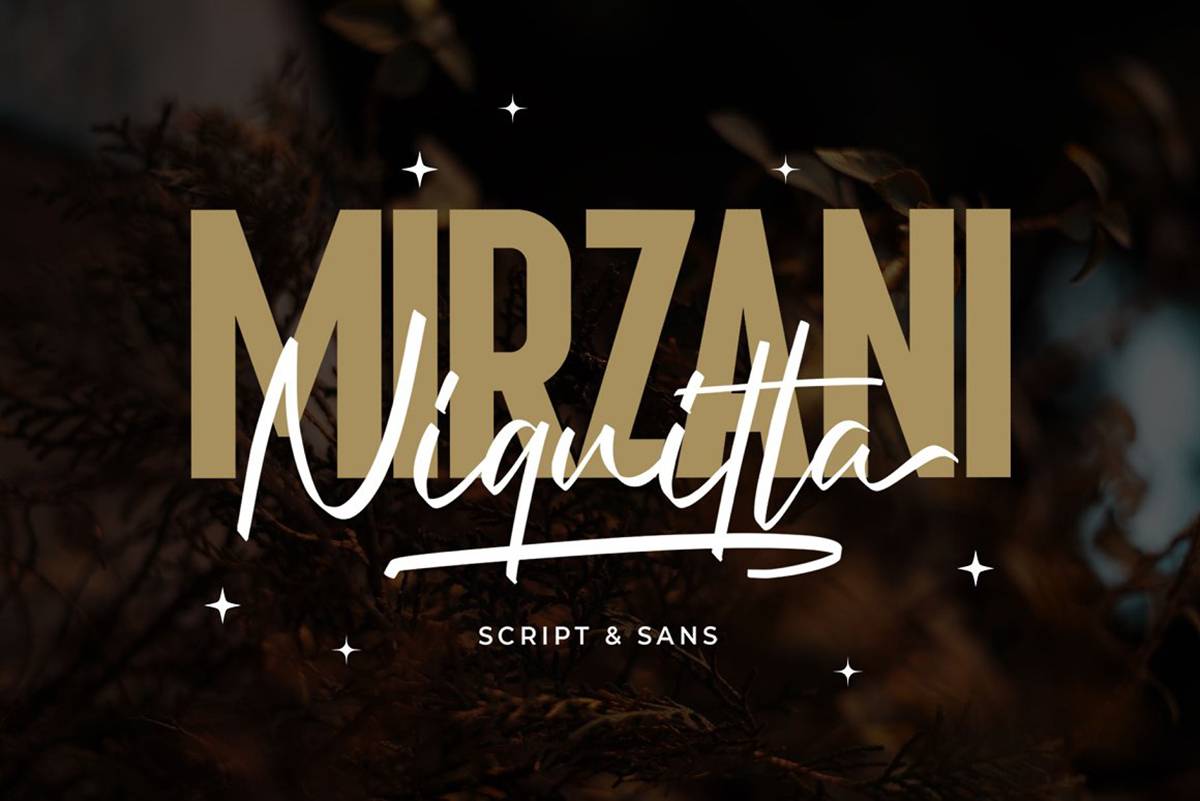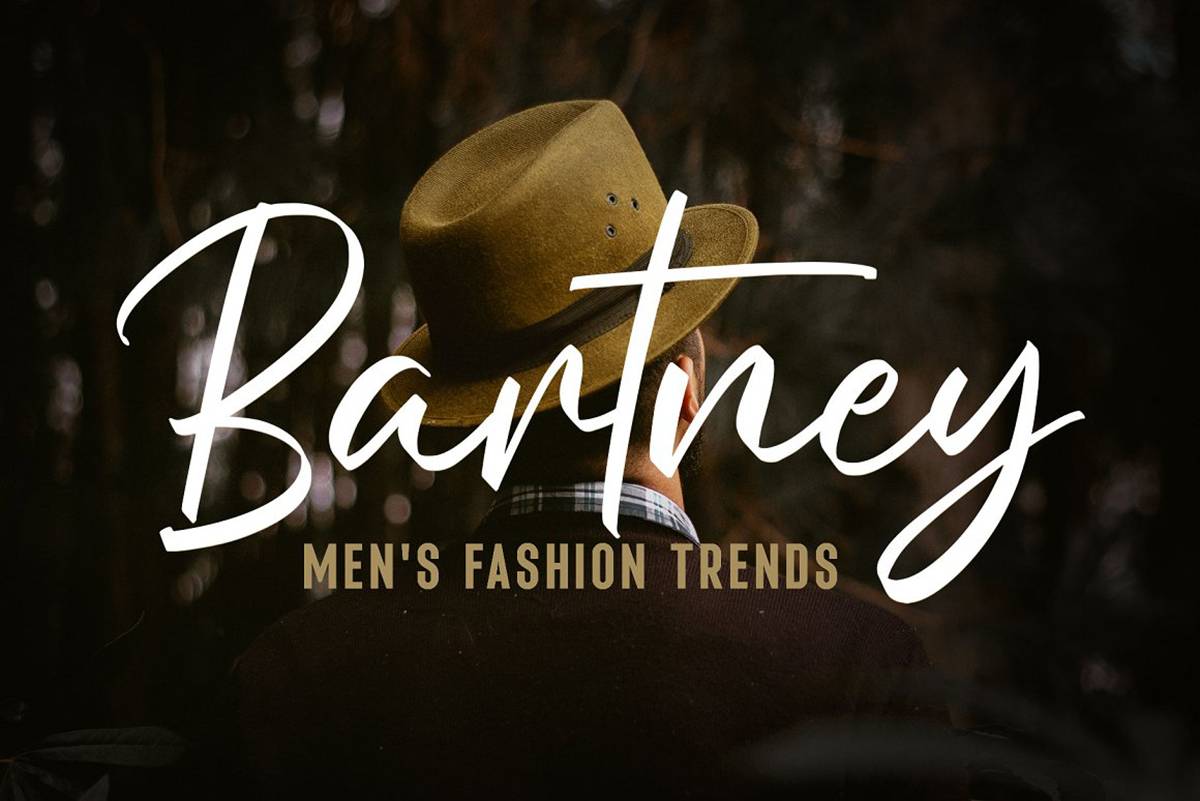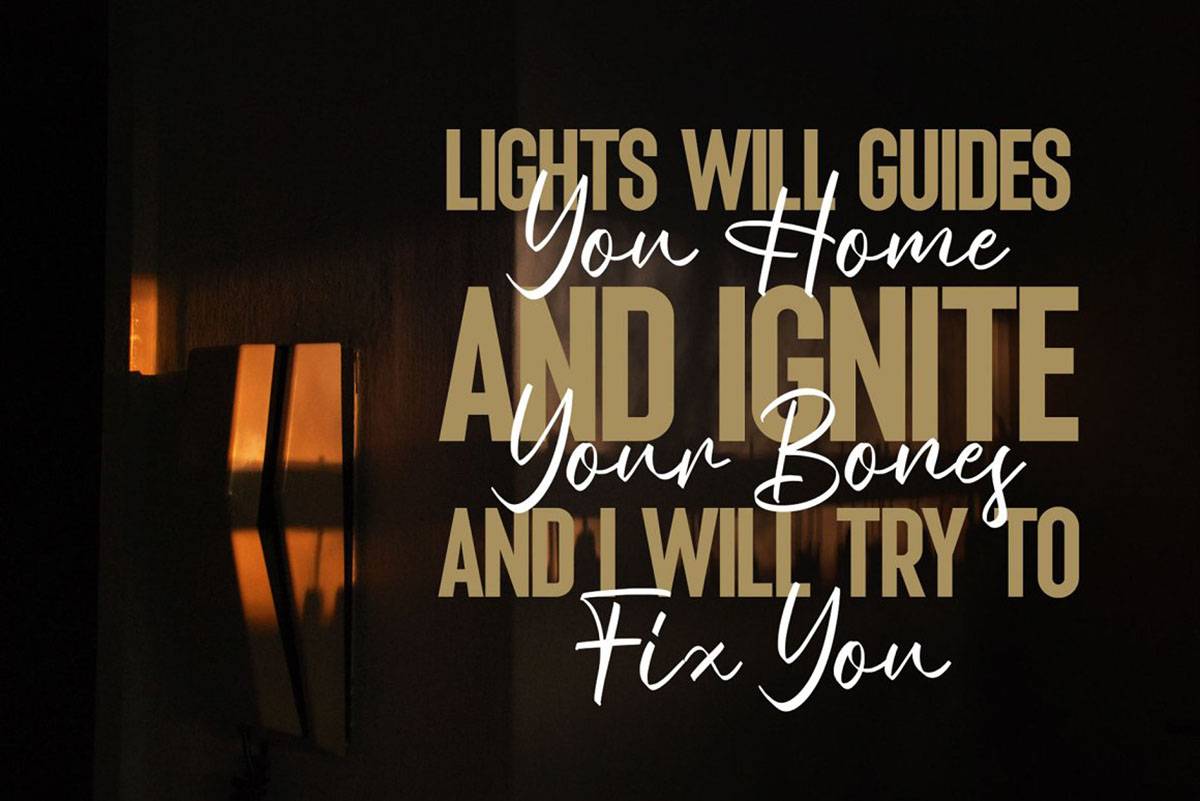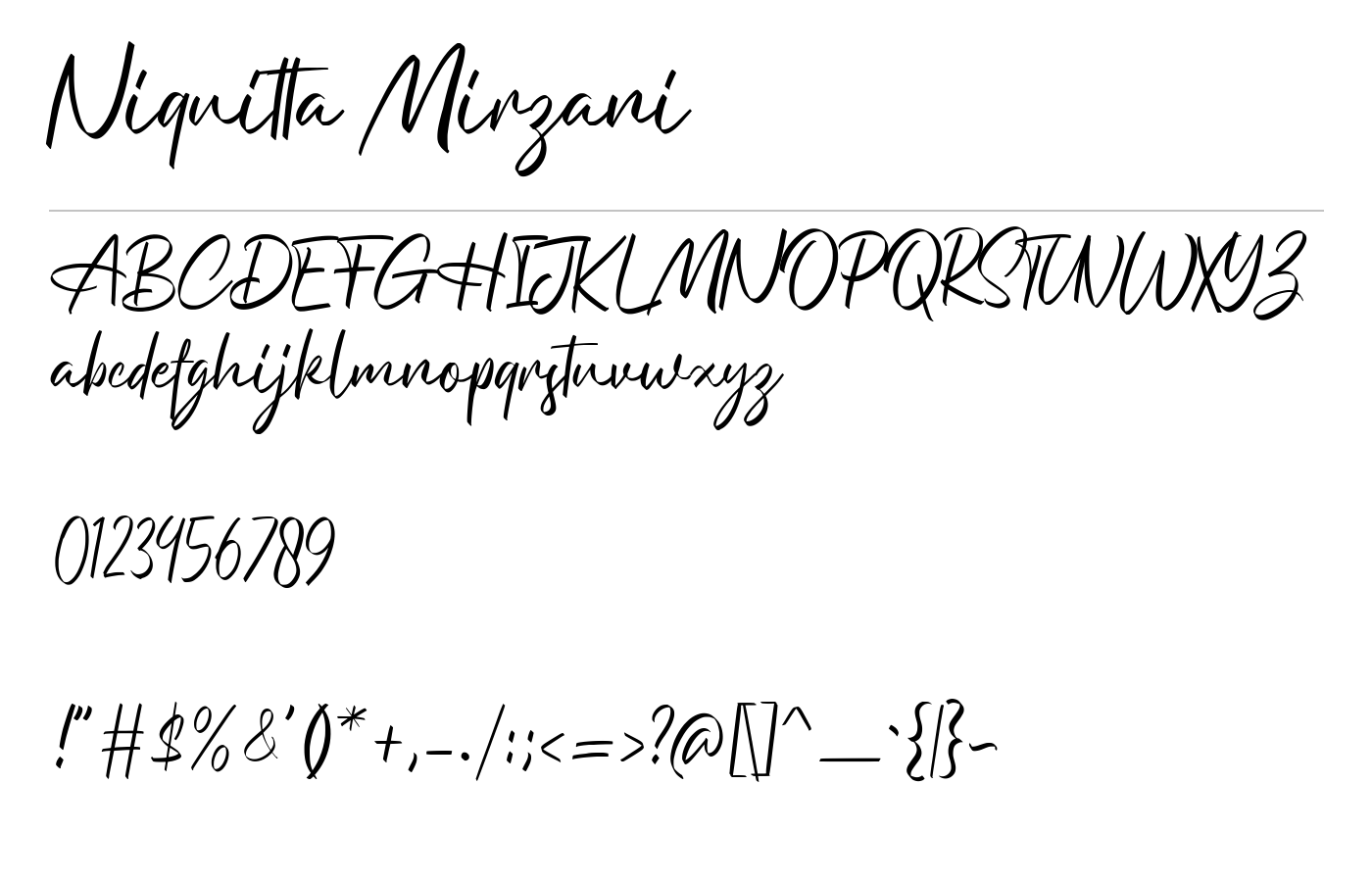
Niquitta Mirzani is a lively and elegant handwritten script font characterized by its tall, narrow letterforms and smooth, flowing strokes. With a casual yet refined feel, its unique, slightly irregular characters add personality and charm, making it perfect for branding, invitations, and creative projects seeking a personal touch. This font shines in designs that want to convey warmth, creativity, and individuality.
Niquitta Mirzani Font
About Niquitta Mirzani Font
| Font family | Niquitta Mirzani Font |
| Release date | 2021-02-10 |